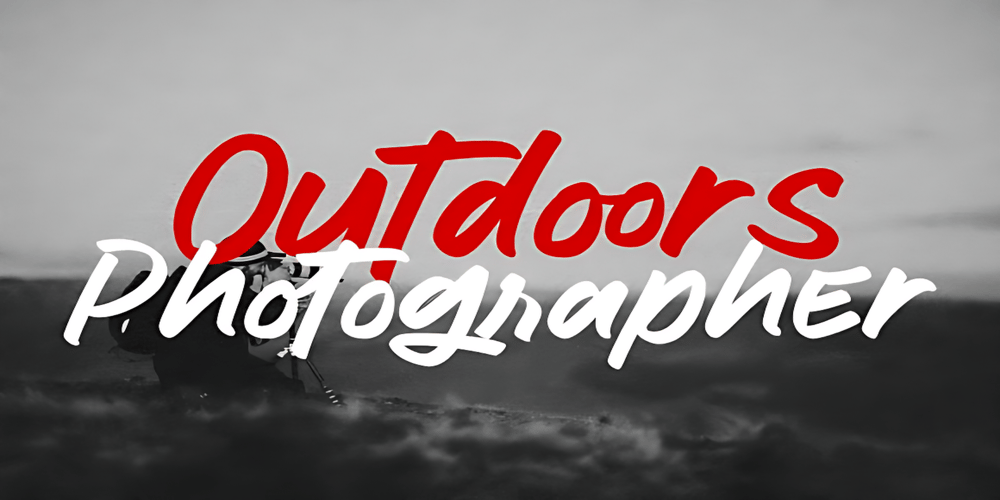
Outdoors Photographer Font Family was designed by Mark Jamra and published by Adita Fonts. Outdoors Photographer contains 1 styles and family package options. Introducing Outdoors Photographer ! Discover the charm of this elegant Marker Font, Meticulously crafted, this font seamlessly blends each character to perfection, allowing you to create captivating combinations through Mix & Match. The result is a truly original look that caters to all your project requirements.